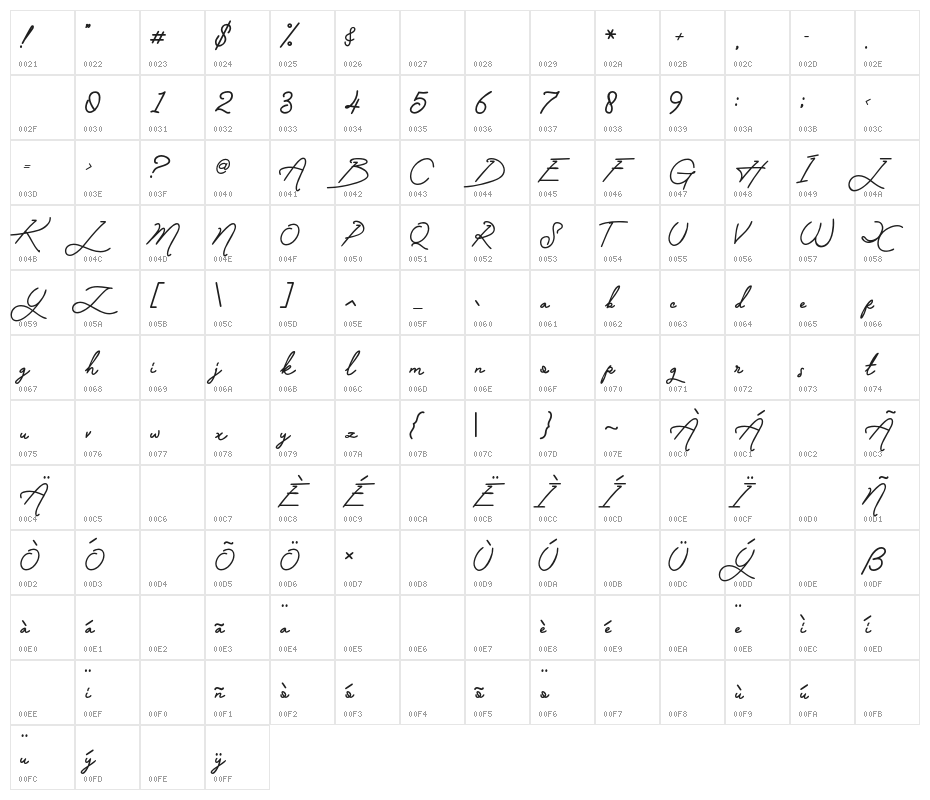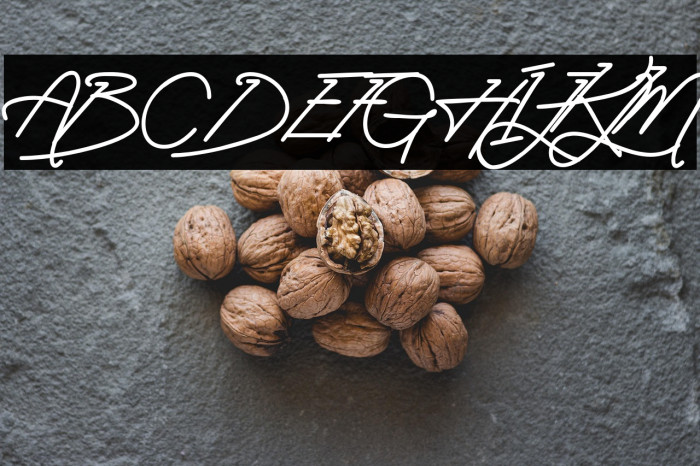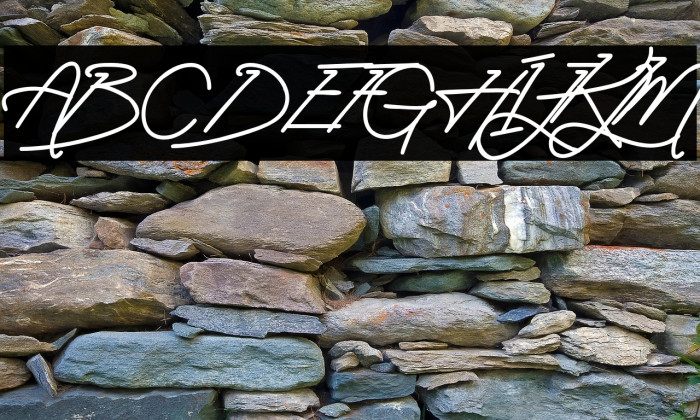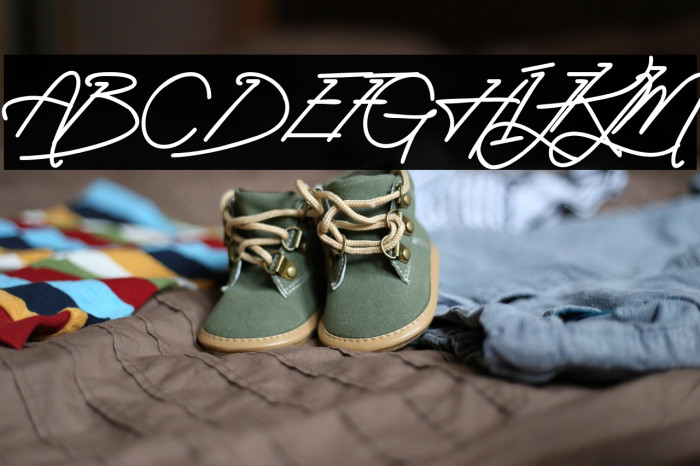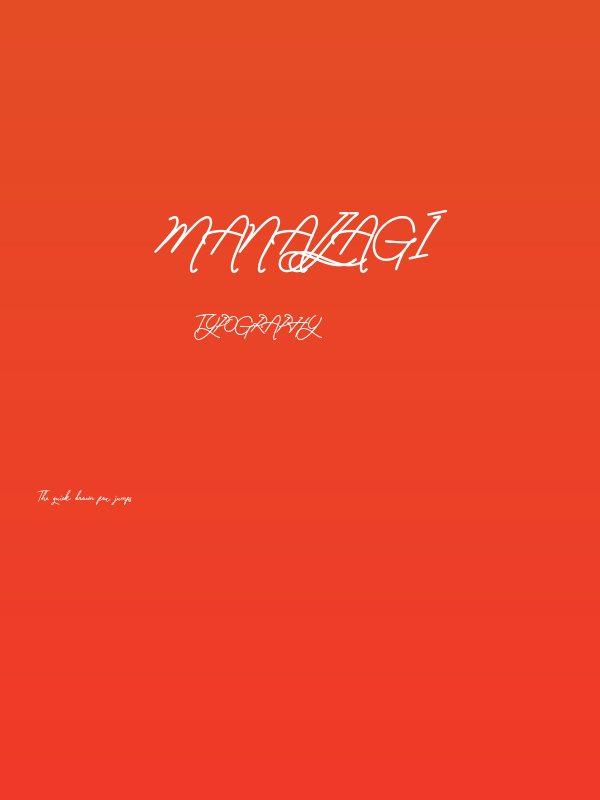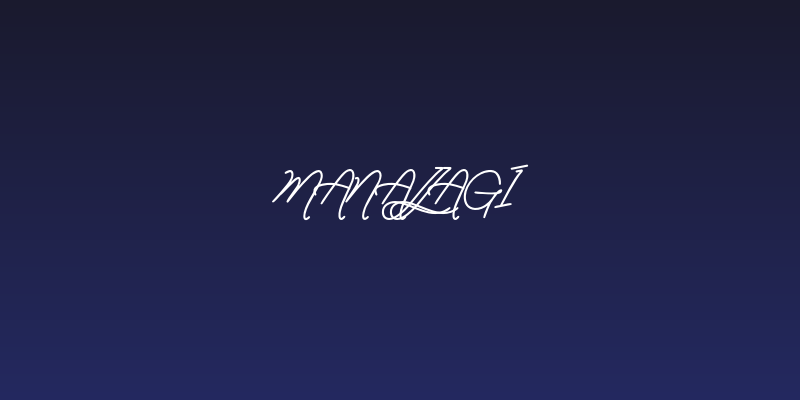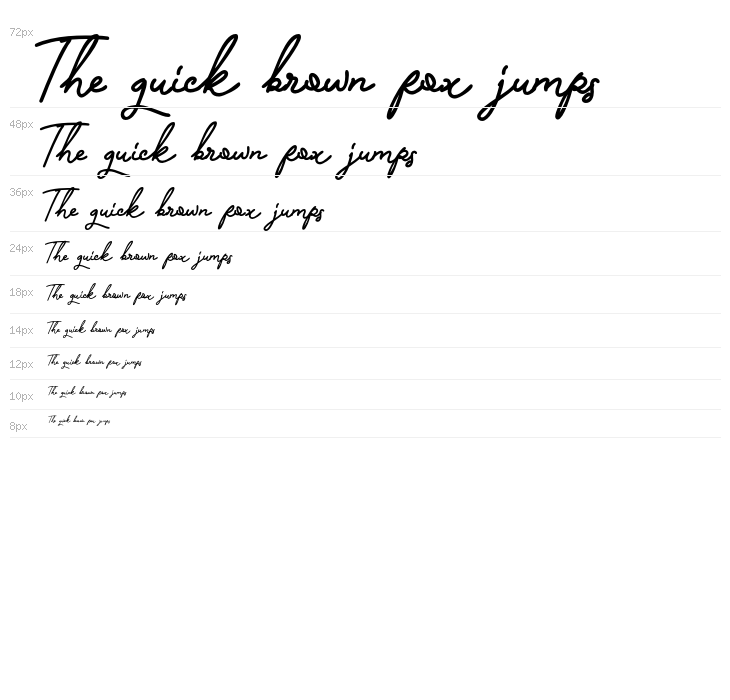
Manallagi Font
Manallagi Description
This font features a flowing, cursive style that mimics natural handwriting with an elegant flair. The uppercase letters are bold and sweeping, with dramatic loops and flourishes that give them a distinctive, artistic appearance. The lowercase letters maintain a consistent slant and are connected, enhancing the script's fluidity. Numbers are styled to match the cursive letters, with a slight tilt and rounded edges. Special characters are integrated seamlessly, maintaining the overall handwritten aesthetic. This font is ideal for projects that require a personal touch, such as invitations, greeting cards, or branding materials that aim to convey elegance and sophistication.
| Overall Style | Elegant, Handwritten |
| Proposed Projects | Ideal for wedding invitations, personal branding, greeting cards, and elegant packaging. |